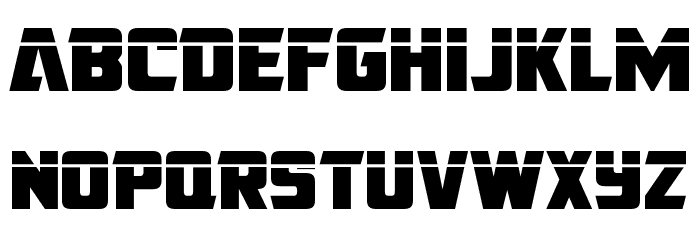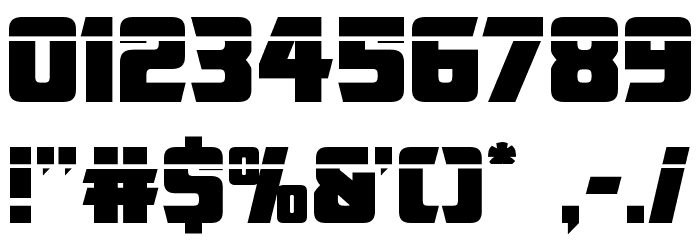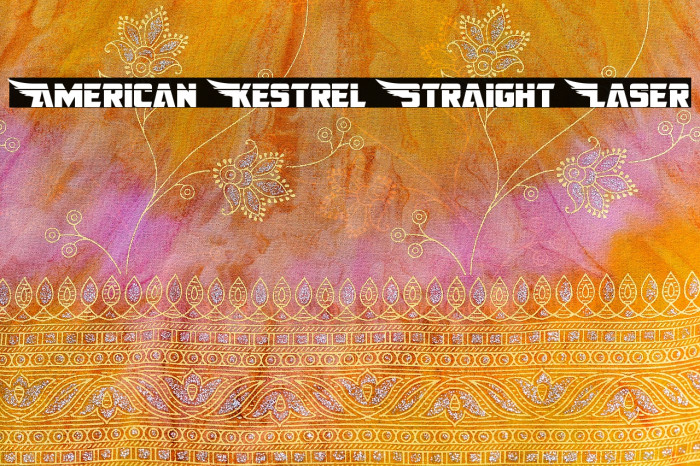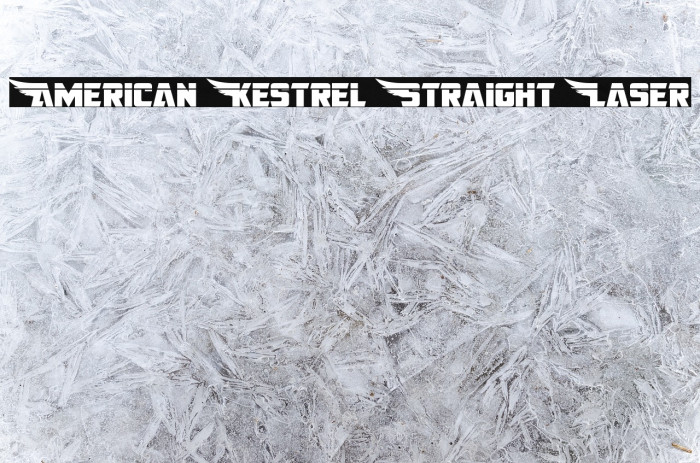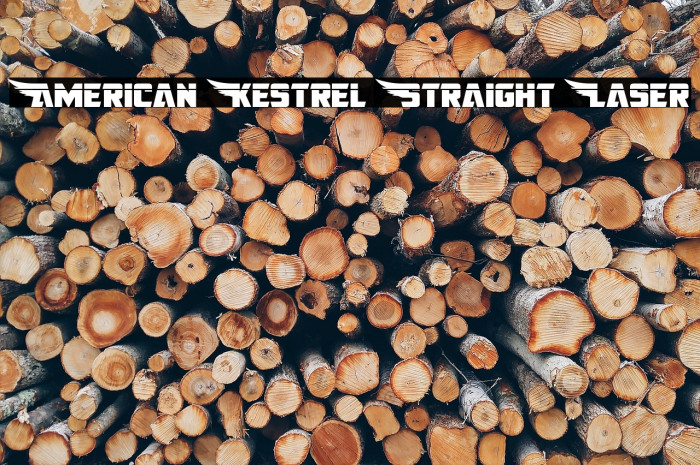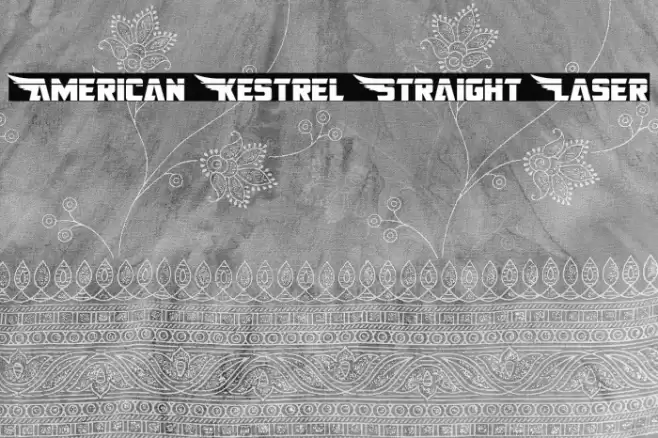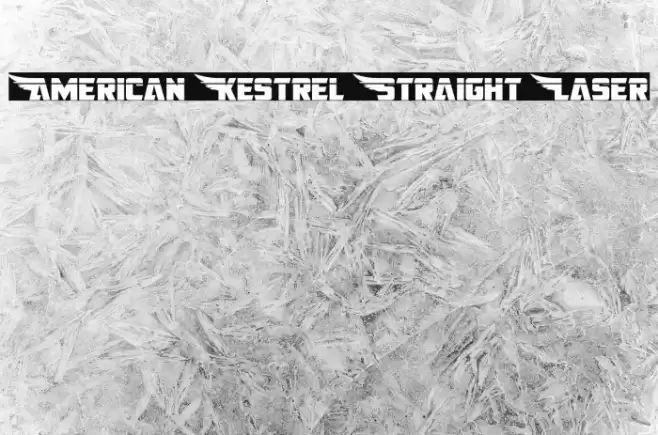
American Kestrel Straight Laser Font
This font features a bold and striking design with a futuristic and angular aesthetic. The uppercase letters are adorned with sharp, wing-like extensions that give them a dynamic and aggressive appearance. The characters are wide and heavily stylized, making them ideal for impactful visual statements. The numbers and special characters follow the same bold and geometric style, ensuring consistency across all glyphs. The overall design is reminiscent of modern technology and speed, making it suitable for projects that require a strong and memorable visual identity.
A bold, futuristic font with angular, wing-like extensions on uppercase letters.
- Proposed Projects: Ideal for branding, sports team logos, video game titles, and futuristic-themed designs.
- Width: Expanded
- Use Case: Logos, Headlines